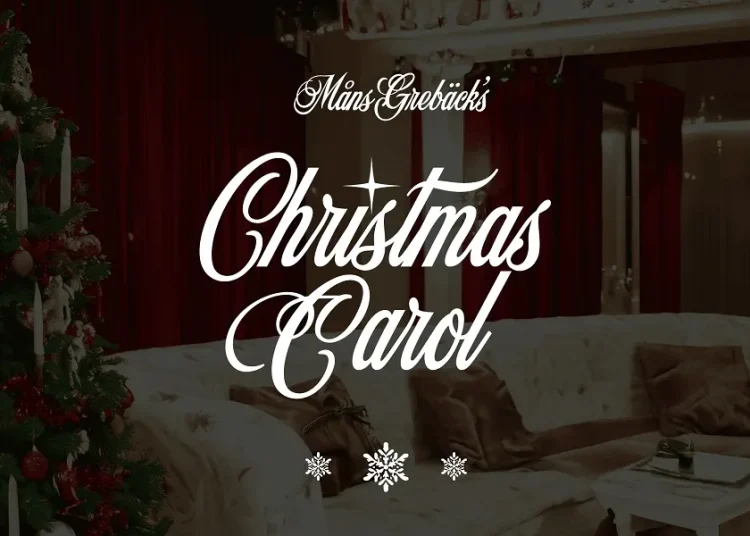
Christmas Carol Font
Christmas Carol is a modern Christmas font designed to embody the elegance and charm of the festive season. With its sophisticated curves and flowing lines, this font captures the warmth and joy associated with holiday celebrations, making it perfect for a variety of Christmas-themed projects.
Key Features of Christmas Carol:
• Elegant and Classic Design: Christmas Carol combines a classic aesthetic with modern sensibilities, offering an elegant and refined look that enhances any holiday design. Its smooth lines and formal tones add a touch of sophistication to your festive materials.
• Nostalgic Appeal: The font’s nostalgic charm evokes the warmth and joy of Christmas, making it ideal for creating holiday greetings, invitations, and decorations that capture the spirit of the season.
• Versatile Applications: Christmas Carol is suitable for a wide range of uses, including:
• Invitations: Perfect for creating elegant dinner party invites or holiday gathering announcements.
• Banners: Ideal for winter-themed celebrations, adding a festive touch to banners and event signage.
• Greeting Cards: Enhance holiday greetings with a font that exudes classic charm and warmth.
• Decorations: Add a touch of sophistication to Christmas decorations with this beautifully designed font.
• OpenType Features: Built with OpenType technology, Christmas Carol offers extensive flexibility and quality. Key features include:
• Contextual Alternatives: Adjusts automatically for improved readability and aesthetic consistency.
• Stylistic Alternatives: Provides various design options to match your creative vision.
• Ligatures: Enhances text flow and appearance with carefully crafted letter combinations.
• Extensive Language Support: Christmas Carol covers a broad range of languages, including those spoken from Northern Europe to South Africa, and from North America to South-East Asia. It includes all necessary characters, symbols, punctuation marks, and numbers for comprehensive design needs.